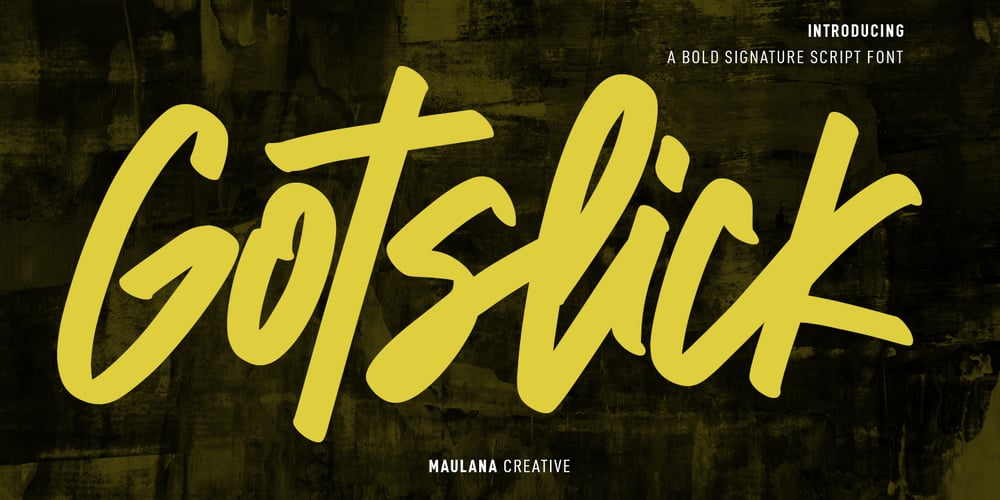
Gotslick Font Family was designed by Gilang Maulana and published by Maulana Creative. Gotslick contains 1 styles and family package options. Gotslick is a fancy handwritten script font. With bold slanted stroke, fun character with a bit of ligatures and alternates. To give you an extra creative work. Gotslick font support multilingual more than 100+ language. This font is good for logo design, Social media, Movie Titles, Books Titles, a short text even a long text letter and good for your secondary text font with sans or serif. Make a stunning work with Gotslick font. Cheers, Maulana Creative